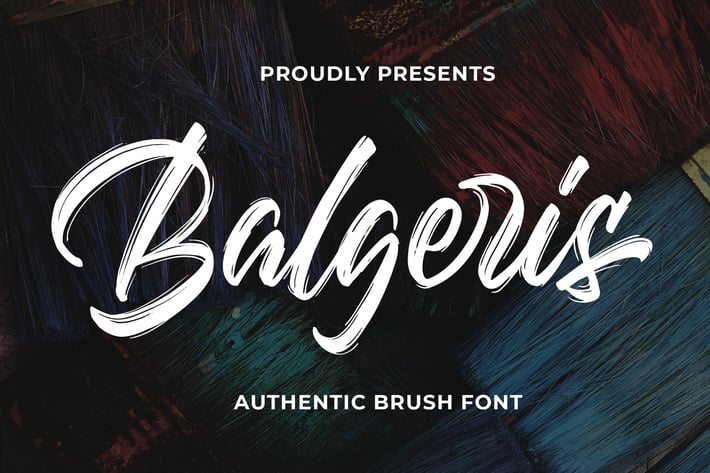
Balgeris - Authentic Brush Font
Introducing of our new product the name is Balgeris Authentic Brush Font. Balgeris inspired by Brush calligraphy this font is a fun theme very good for signature, poster, fashion, wedding, branding etc
MULTILINGUAL ACCENT :
ŽžŠŒšŸÀÁÂÃÄÅÆÇÈÉÊËÌÍÎÏÐŁÑÒÓÔÕÖØÙÚÛÜÝßàáâãäåæçèéêëìíîïłñòóôõöøùúûüýÿ